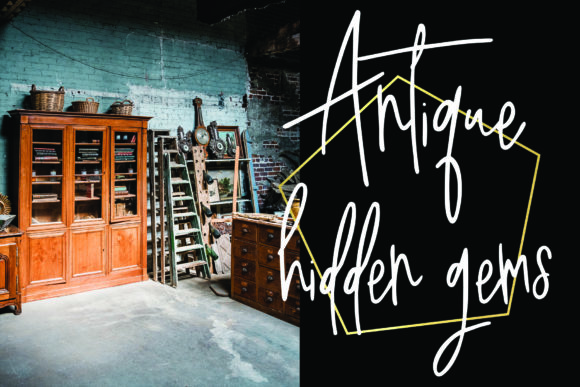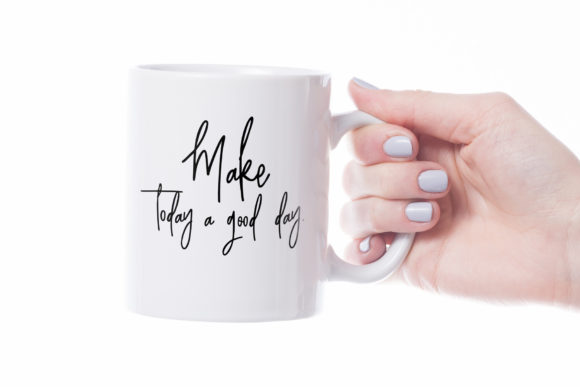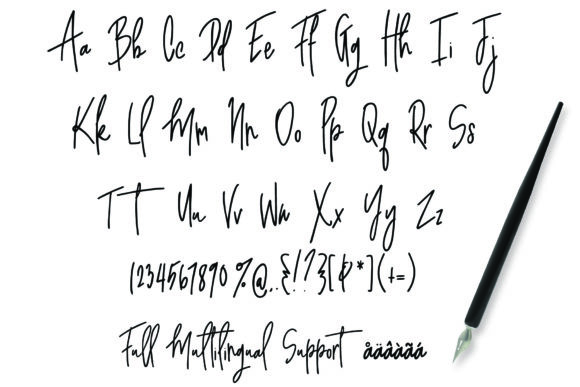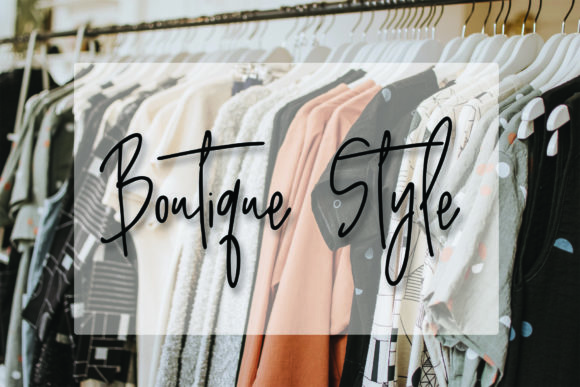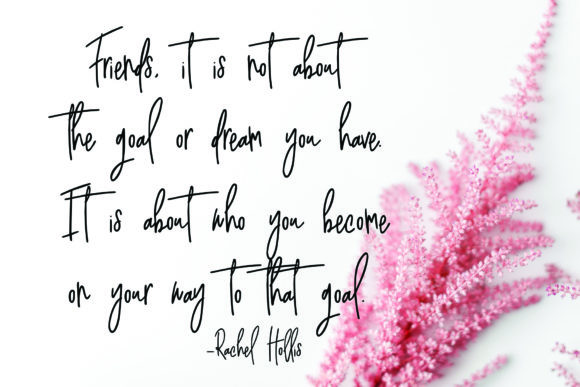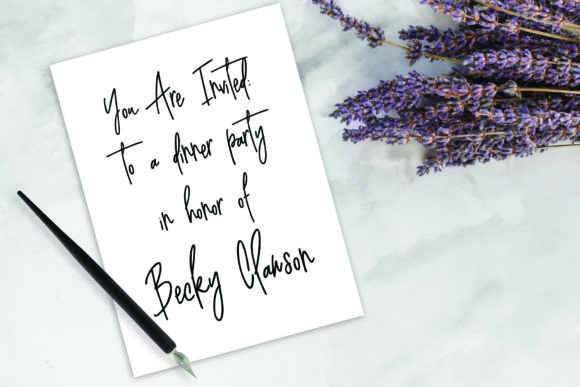
Awestruck Font: Elevate Your Designs with Elegance and Sophistication
In the world of typography, fonts play a crucial role in conveying the tone and personality of a design. For designers and crafters looking to add a touch of elegance and modernity to their projects, the Awestruck Font is an excellent choice. This fashionable and relaxed script font is designed to make a statement, offering a classy and sophisticated look that’s perfect for a wide range of applications.
The Essence of Awestruck Font
Awestruck is a beautifully crafted script font that exudes a sense of luxury and refinement. Its elegant and modern design makes it an ideal choice for projects that require a high level of sophistication, such as logos, branding, invitations, stationery, and wedding designs. The font’s relaxed yet stylish appearance also makes it suitable for social media posts, adding a touch of personality to your online presence.
Key Features of Awestruck Font
- Fashionable and Relaxed Design: Awestruck boasts a unique blend of fashionability and relaxation, making it perfect for designs that require a modern and approachable feel.
- Classy and Elegant: The font’s classy and elegant appearance makes it suitable for high-end designs, such as luxury branding, wedding invitations, and exclusive events.
- Modern Look: Awestruck’s modern design ensures that your projects look contemporary and fresh, setting them apart from more traditional designs.
- Versatile: This font can be used for a wide range of applications, including logos, branding, invitations, stationery, wedding designs, social media posts, and more.
Uses of Awestruck Font
The versatility of Awestruck Font makes it an excellent addition to any designer’s toolkit. Here are some of the many ways you can use this beautiful script font:
- Invitations and Stationery: Add a touch of elegance to your invitations, greeting cards, and stationery with Awestruck’s sophisticated design.
- Wedding Designs: Make your wedding designs truly unforgettable with Awestruck’s beautiful and romantic script font.
- Social Media Posts: Elevate your social media presence with stylish and engaging posts that showcase your brand’s personality.
Why Choose Awestruck Font?
With so many fonts available, why choose Awestruck? Here are a few compelling reasons:
- Unique Design: Awestruck’s unique blend of fashionability and relaxation sets it apart from other script fonts.
- Elegance and Sophistication: The font’s classy and elegant design makes it perfect for high-end designs and luxury branding.
- Versatility: Awestruck can be used for a wide range of applications, making it an excellent addition to any designer’s toolkit.
- Easy to Read: Despite its elegant design, Awestruck is easy to read, making it perfect for body text and captions.
Tips for Using Awestruck Font
To get the most out of Awestruck Font, here are a few tips:
- Pair with Complementary Fonts: Pair Awestruck with complementary fonts to create a visually appealing contrast.
- Experiment with Colors: Try out different colors to find the perfect match for your design.
- Pay Attention to Spacing: Make sure to adjust the spacing between letters and lines to create a harmonious design.
Awestruck Font is a beautiful and versatile script font that’s perfect for designers and crafters looking to add a touch of elegance and sophistication to their projects. With its unique design, classy appearance, and modern look, Awestruck is an excellent choice for a wide range of applications. Whether you’re creating logos, branding, invitations, or social media posts, Awestruck Font is sure to elevate your designs and make them truly unforgettable.